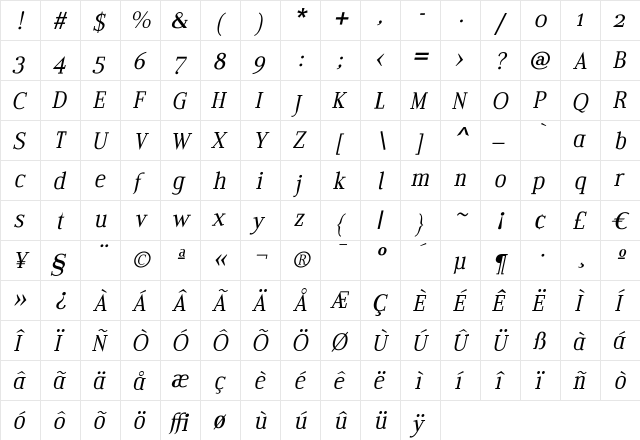
Edito AaItalic Regular
Design Context for Edito AaItalic Typeface
Edito AaItalic offers clean, dependable letterforms without strong stylistic allegiance, making it a practical choice for designers who need flexibility. The dynamic lean of this cut emphasises speed and emphasis in any layout.
Pro Tip: Use Edito AaItalic for emphasis, pull quotes, and subheadings where its slanted energy can add rhythm to the layout.